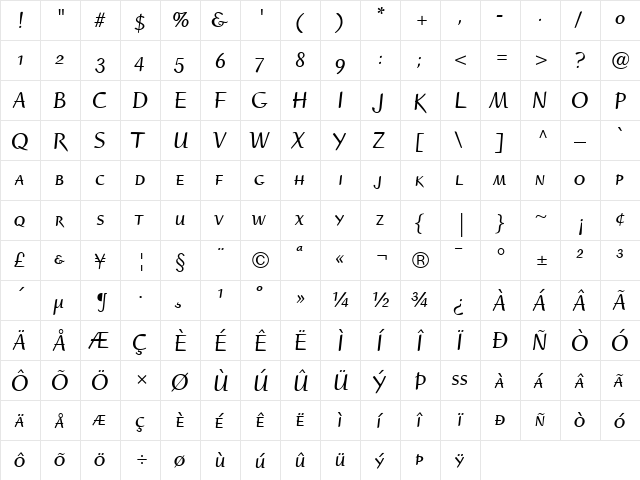
Ruzicka Freehand LH Bold Font Preview
Design Context for Ruzicka Freehand LH Typeface
Ruzicka Freehand LH flows with the natural rhythm of handwritten lettering, making it ideal for designs that call for warmth and personal expression. Its bold stroke weight gives it real presence on the page.
Font Pairing: Combine Ruzicka Freehand LH with a simple geometric sans for maximum contrast — the tension between flowing curves and clean structure is a classic typographic pairing.
Pro Tip: Pair Ruzicka Freehand LH with a clean sans-serif for supporting text. The contrast between fluid script and geometric structure creates an elegant typographic hierarchy.